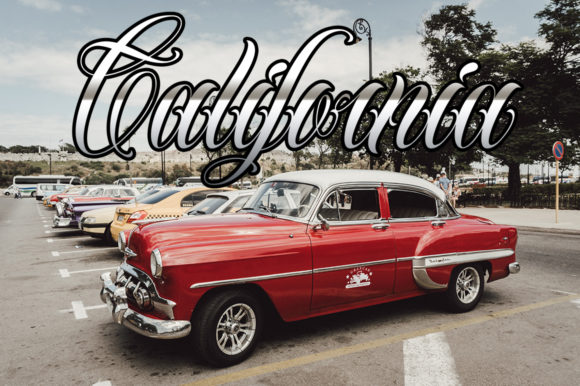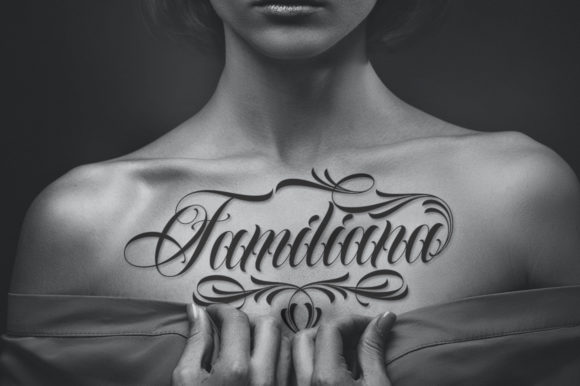
Faikinlan Font
db-ku.com - Script & Handwritten -- Faikinlan is a stylish and incredibly elegant script font. It looks dazzling on wedding invitations, thank you cards, quotes, greeting cards, logos, business cards and every other design which needs a handwritten touch. This font is PUA encoded which means you can access all of the glyphs and swashes with ease!